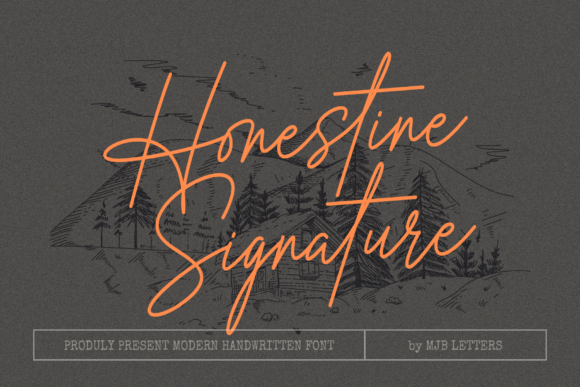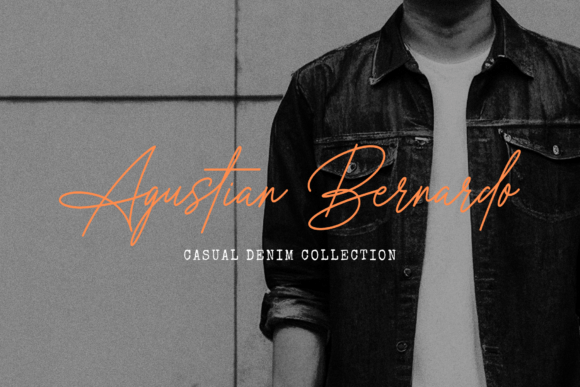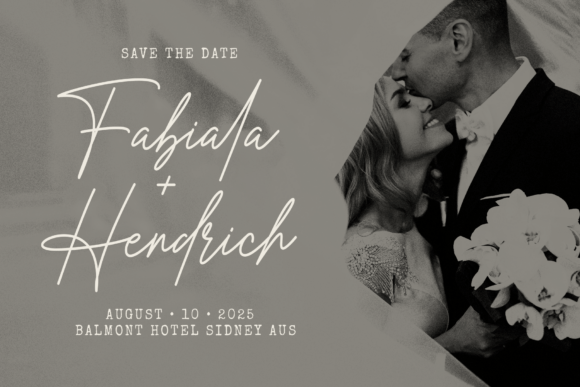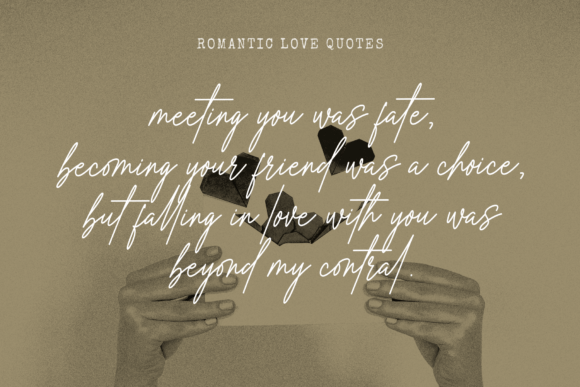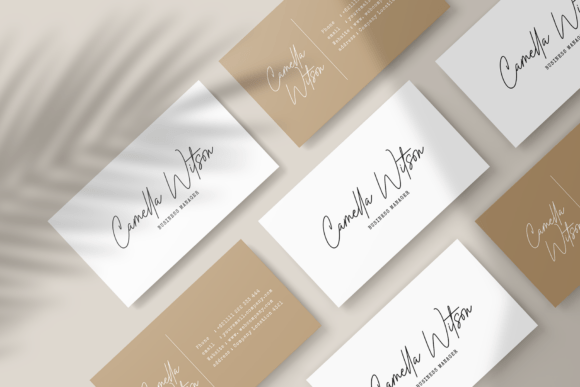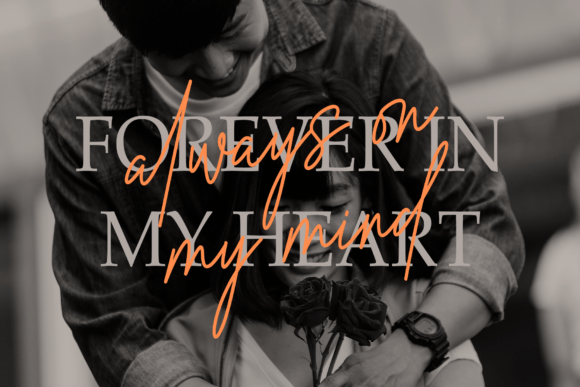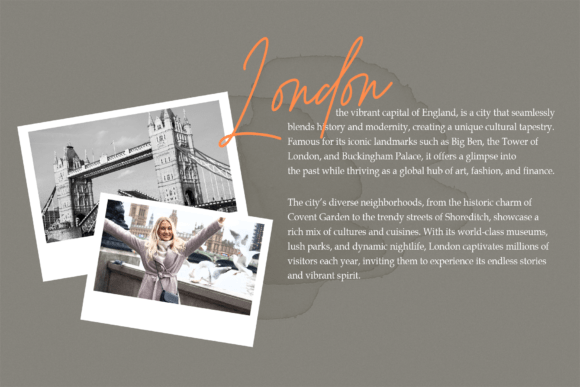
The Art of Elegance: Unlocking the Potential of Honestine Signature Font
Have you ever found yourself staring at a blank page, desperately searching for the perfect font to elevate your design? The struggle is real, especially when you’re working on a project that requires a touch of sophistication and elegance. I know I have – it’s a moment every designer dreads, but also eagerly anticipates, as it’s an opportunity to discover something truly special.
Enter Honestine Signature Font, a refined handwritten script font that’s about to become your new best friend. With its clean, consistent strokes and unique ligatures, this font is perfect for creating memorable branding, signature logos, and wedding invitations that exude luxury and style. For designers, Honestine Signature Font is a valuable asset, offering a polished touch that sets any project apart. Whether you’re working on social media graphics, product packaging, or fashion-related designs, this font is sure to elevate your work and leave a lasting impression.
- Unique Characteristics: Elegant, cursive script with a modern twist, ideal for signatures, logos, and branding
Honestine Signature Font Review
I’ve had the chance to work with the Honestine Signature Font, and I must say it’s a unique addition to any design project. Here are some of the things that really stood out to me:
- ✨ High-quality renderings: The font is beautifully rendered, with crisp lines and smooth curves that make it perfect for print or digital use.
- ✨ Versatile: I love how Honestine can be used for a wide range of designs, from elegant invitations to modern logos.
- ✨ Beautiful ligatures: The font’s ligatures are some of the best I’ve seen, adding a touch of sophistication to any text.
- ⚠️ Limited font sizes: While the font looks great at larger sizes, it can become pixelated and blurry at smaller sizes.
- ⚠️ Limited language support: I found that the font only supports a limited number of languages, which may be a issue for designers working on multilingual projects.
Overall, I think the Honestine Signature Font is a great choice for designers who want to add a touch of elegance and sophistication to their work. While it may have some limitations, the benefits far outweigh the drawbacks.
Tips for Getting the Most Out of Honestine Signature Font
Use Honestine Signature Font for:
- Signatures and personal branding.
- Handwritten-style text effects.
- Adding a touch of elegance to your designs.
Experiment with different font sizes, colors, and combinations to achieve the desired effect.